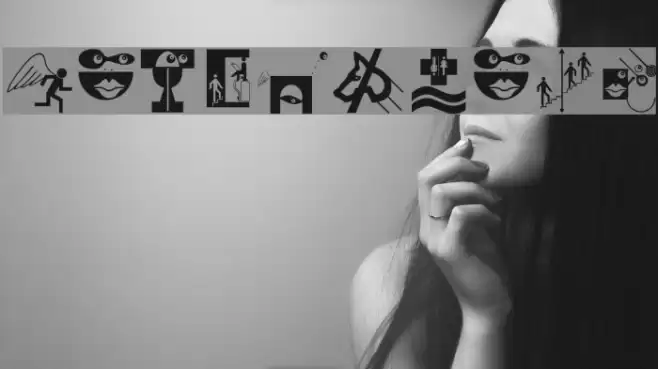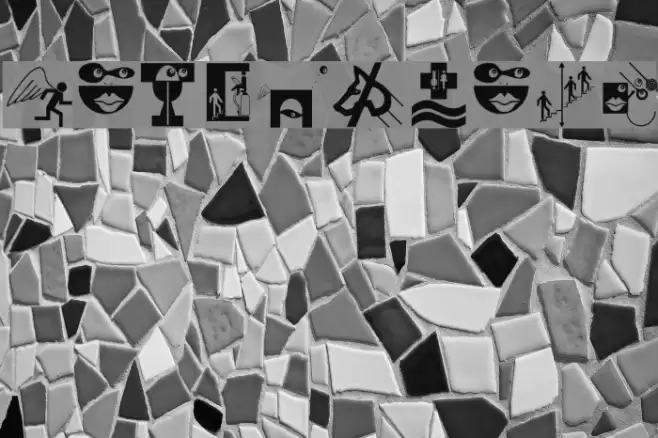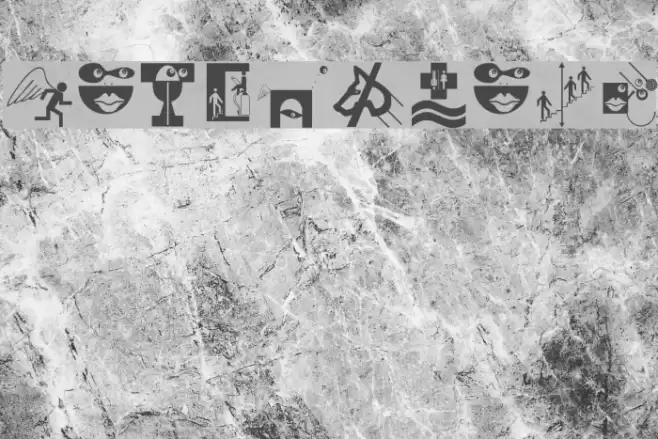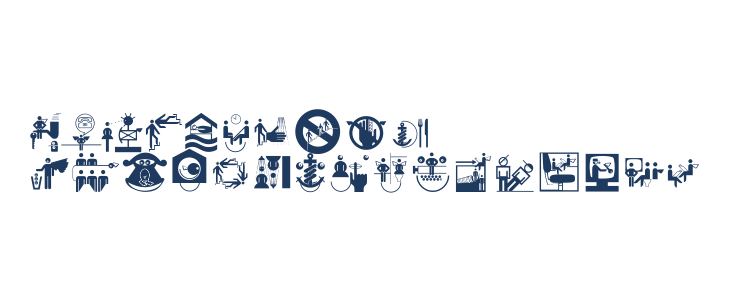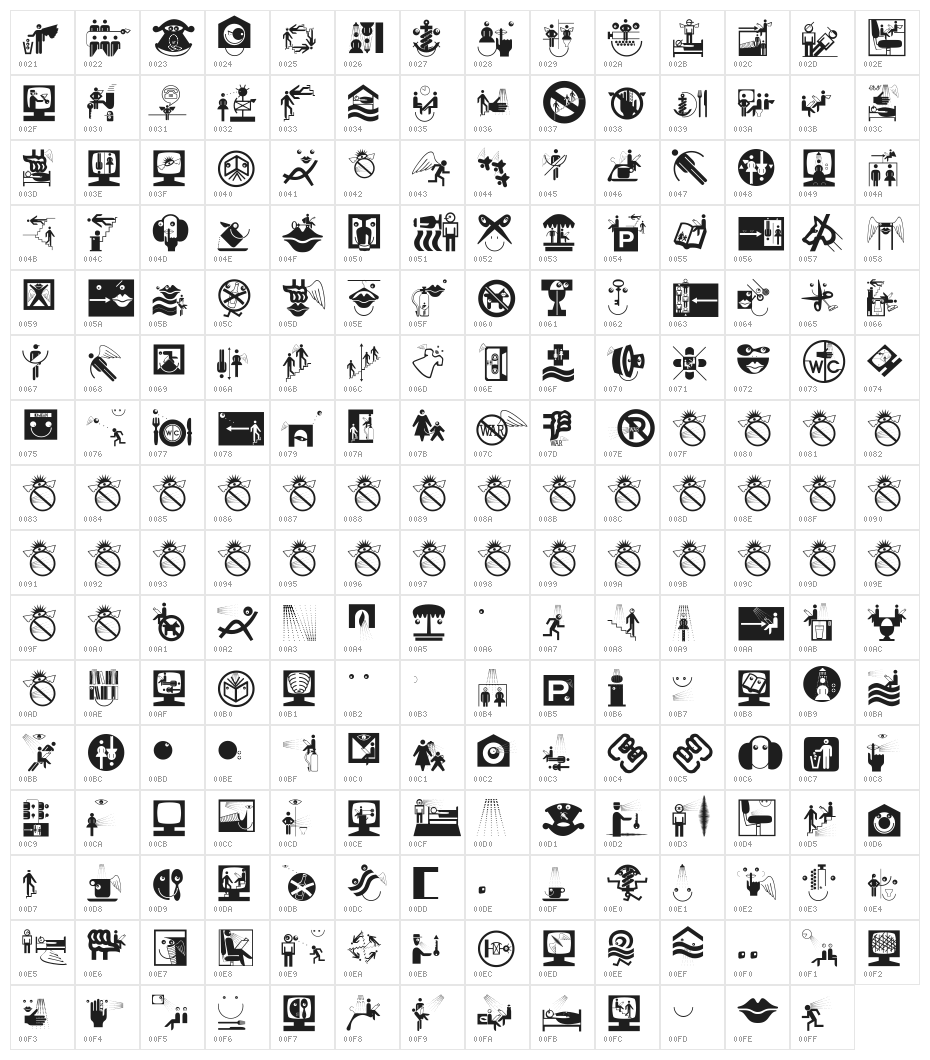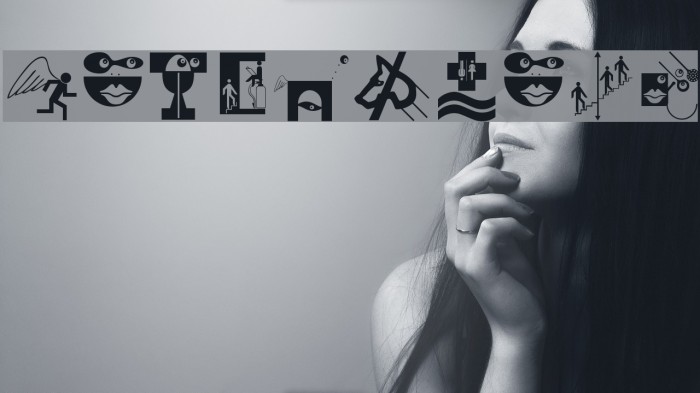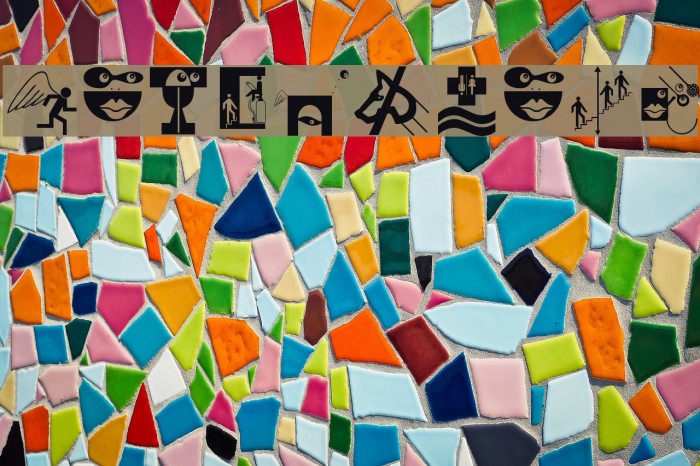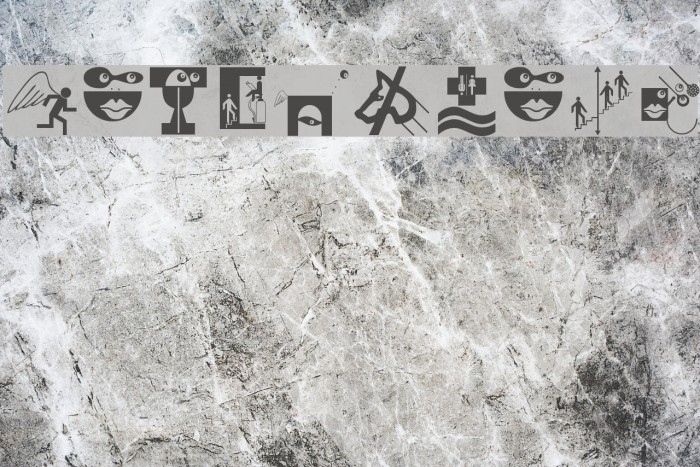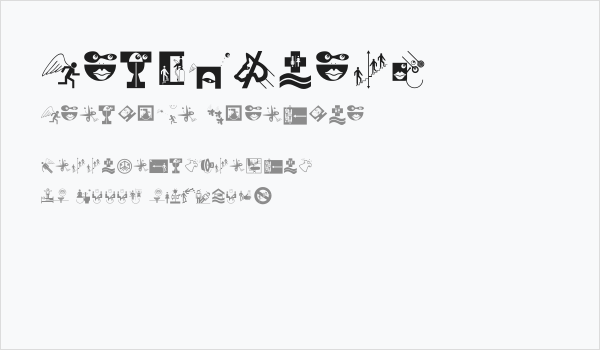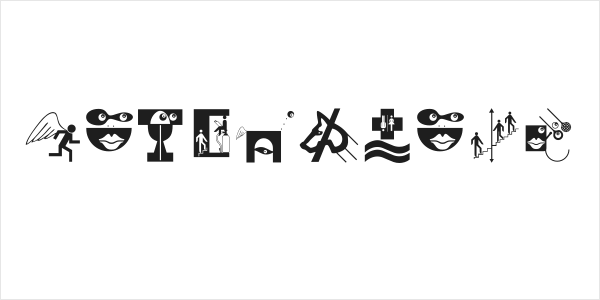
CrazyWorld Font
CrazyWorld Description
This is not a traditional font but rather a collection of whimsical and playful icons. Each character is a unique illustration, combining elements of humor and creativity. The designs incorporate various motifs, such as people, animals, and abstract shapes, often with exaggerated features and dynamic poses. The style is bold and graphic, with a strong use of black and white contrast, making each icon stand out distinctly. These icons are more suited for decorative purposes rather than textual communication, offering a fun and engaging visual experience.
A playful and whimsical collection of illustrative icons from Uncategorized fonts.
- Proposed Projects: Ideal for creative projects such as children's books, playful branding, or unique graphic design elements.
- Use Case: Logos, Decorative elements, Illustrations